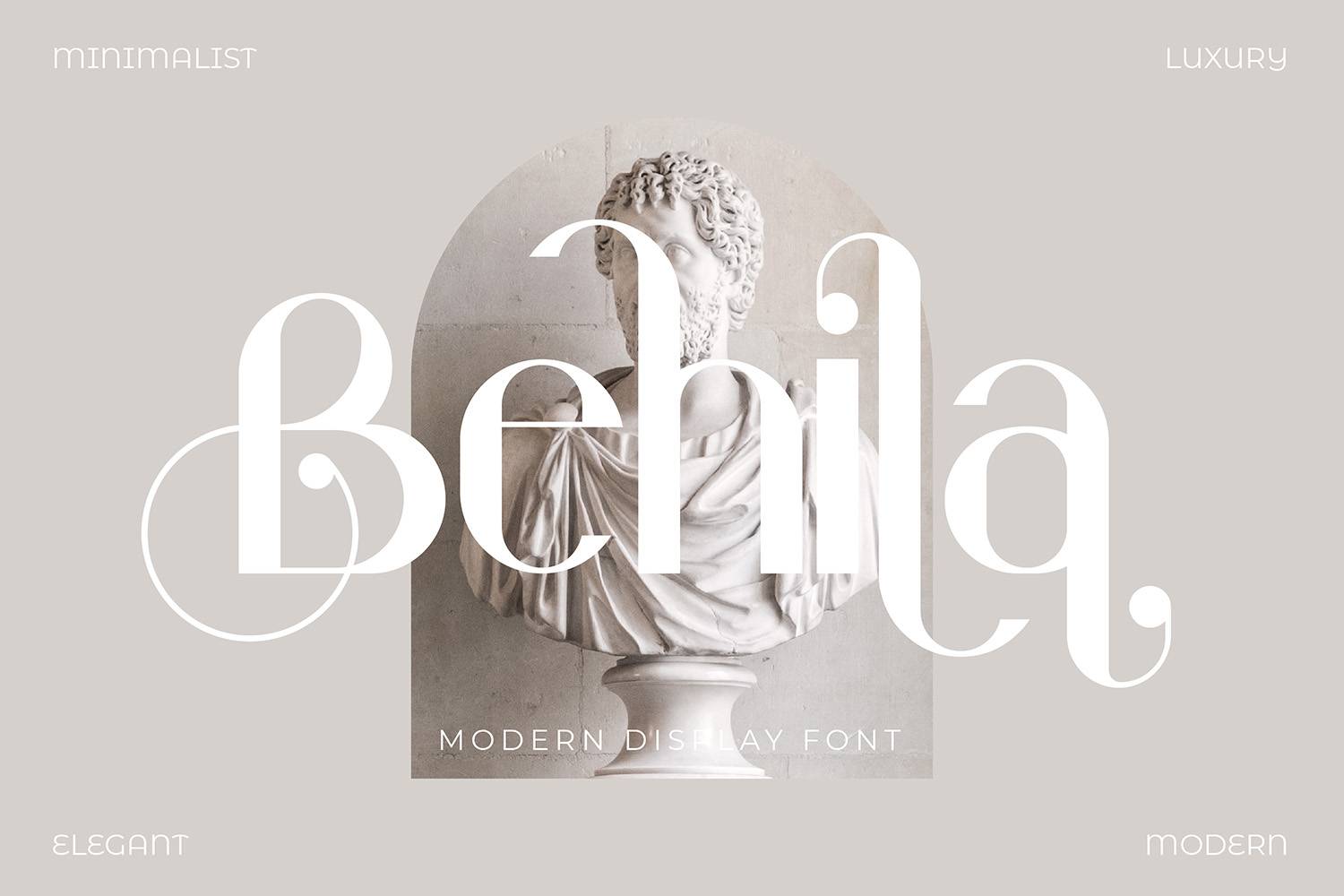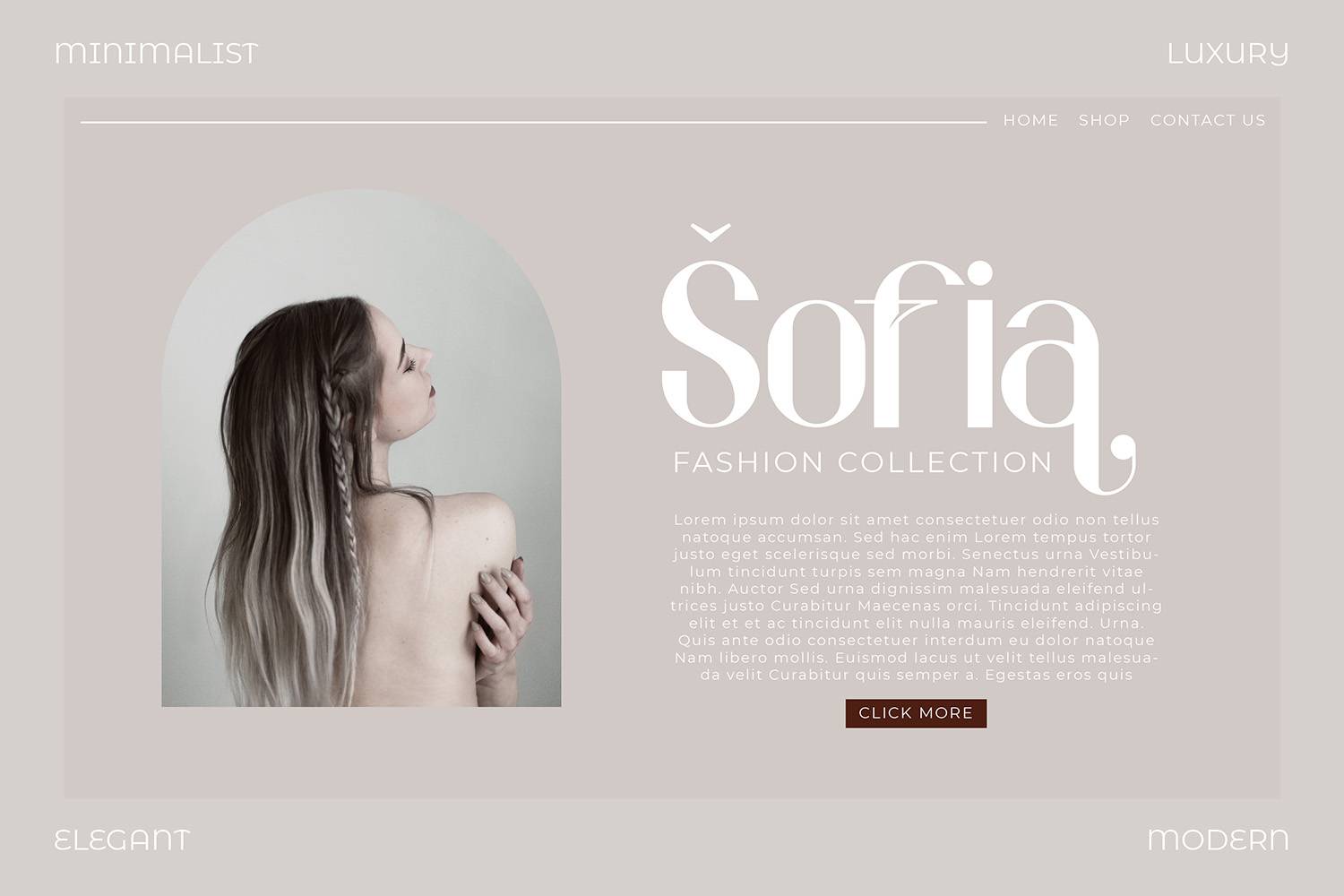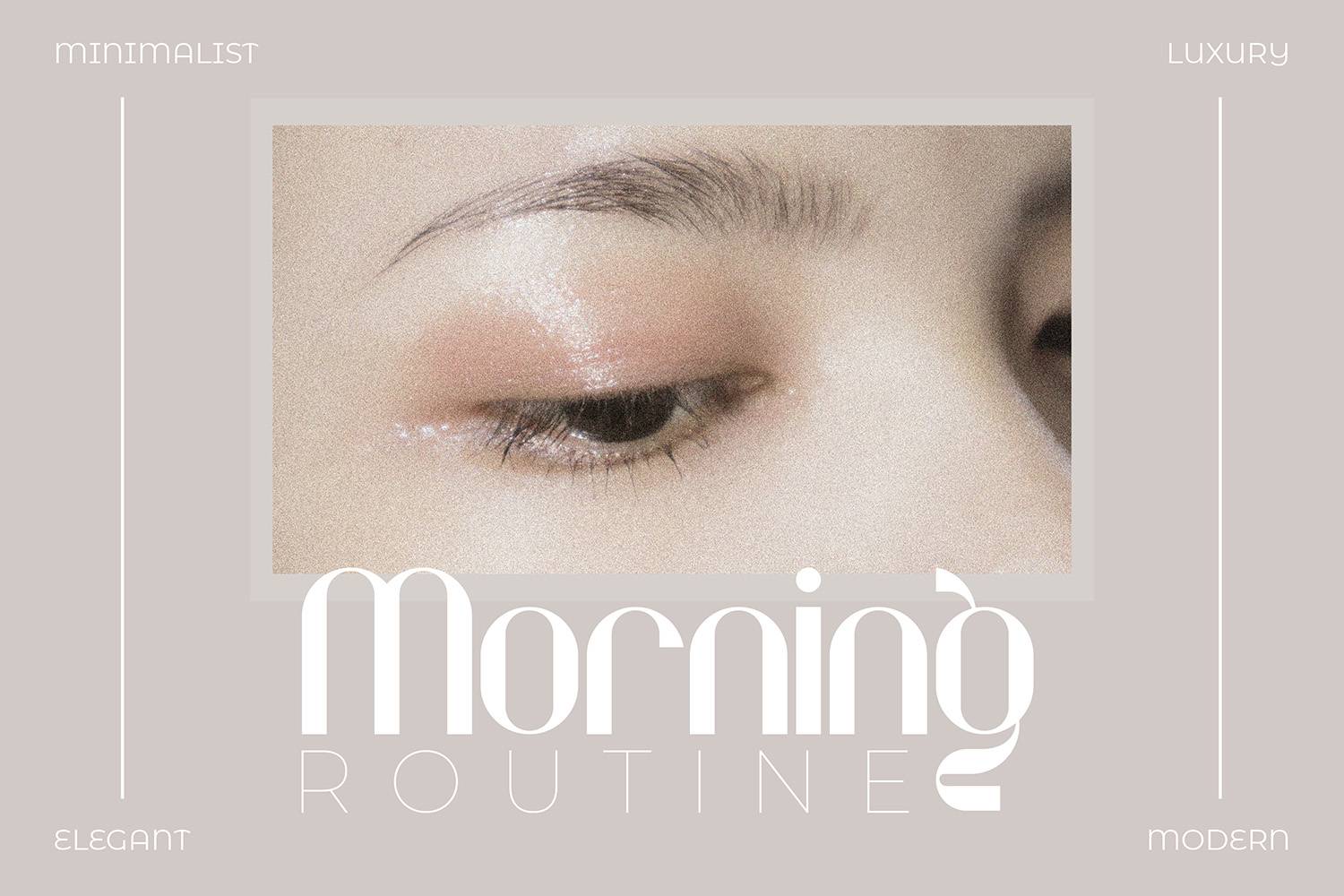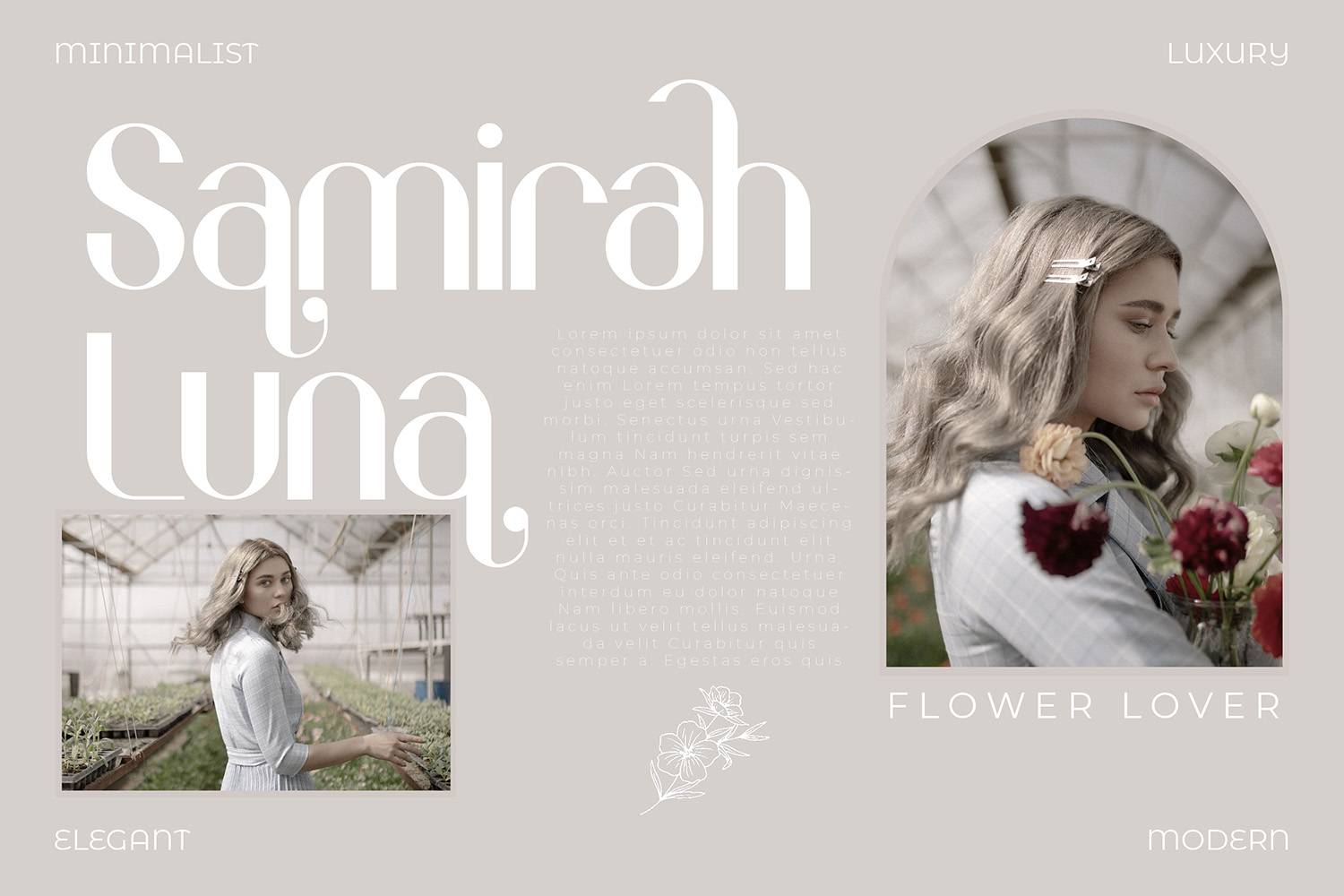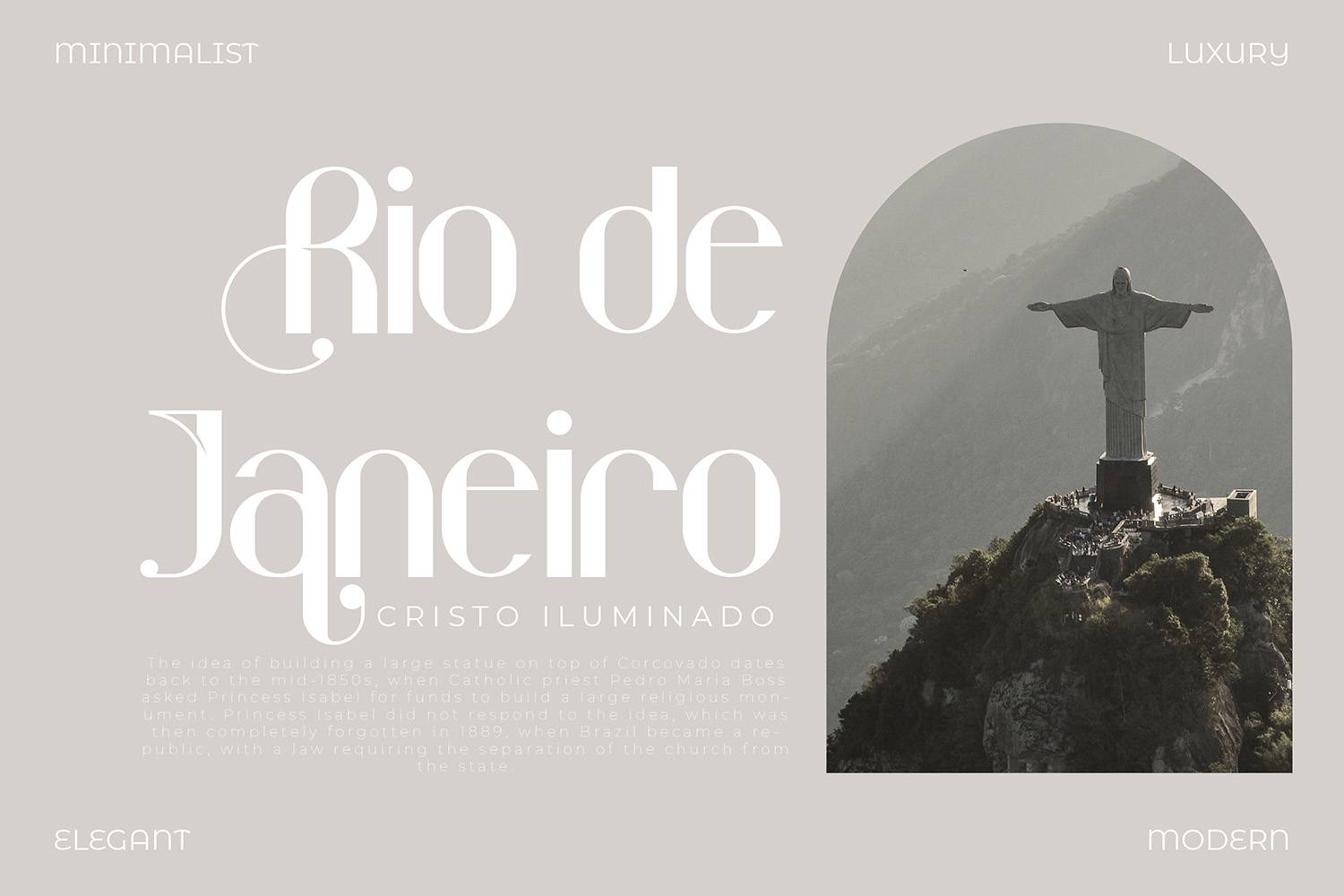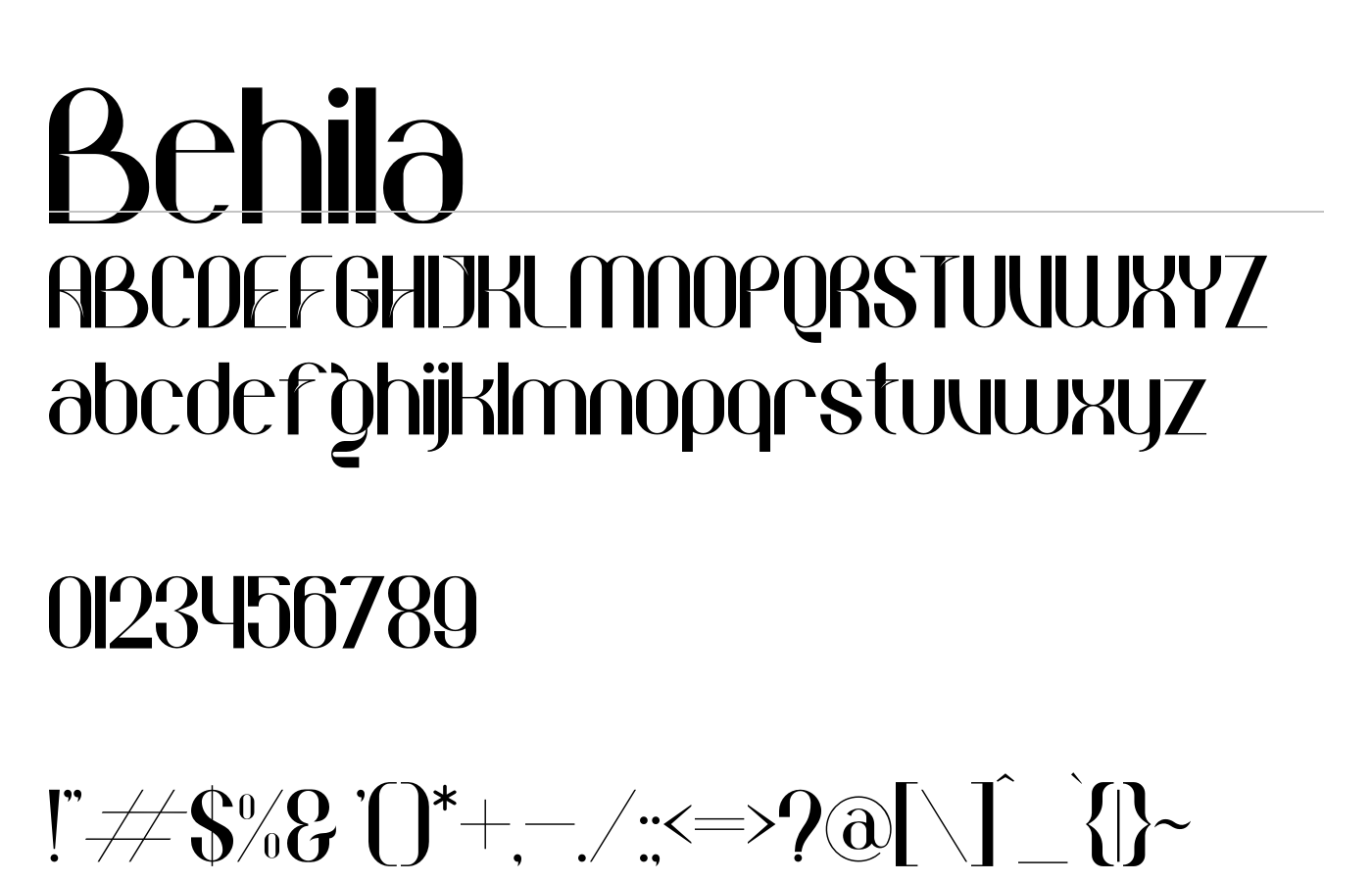
Behila is a modern serif font with a striking contrast between thick and thin strokes and elegant, stylized letterforms that feature unique curves and sharp angles. Its narrow width and refined details give it a sophisticated and contemporary feel, making it ideal for high-end branding, editorial headlines, and fashion-focused design projects where a touch of elegance and distinctiveness is desired.
Behila Font
About Behila Font